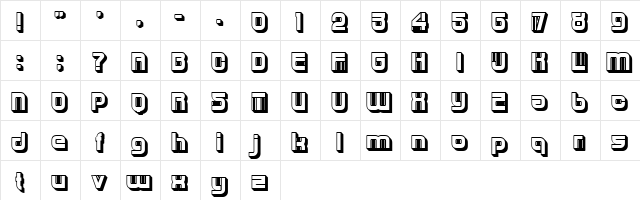
Hunk Regular Font Preview
Hunk Regular
Hunk Regular Font Details
Design Context for Hunk Typeface
Hunk is a composed and adaptable typeface that performs quietly and consistently across a wide range of design contexts.
Pro Tip: Pair Hunk with a font of contrasting weight or personality to build a more expressive typographic hierarchy.